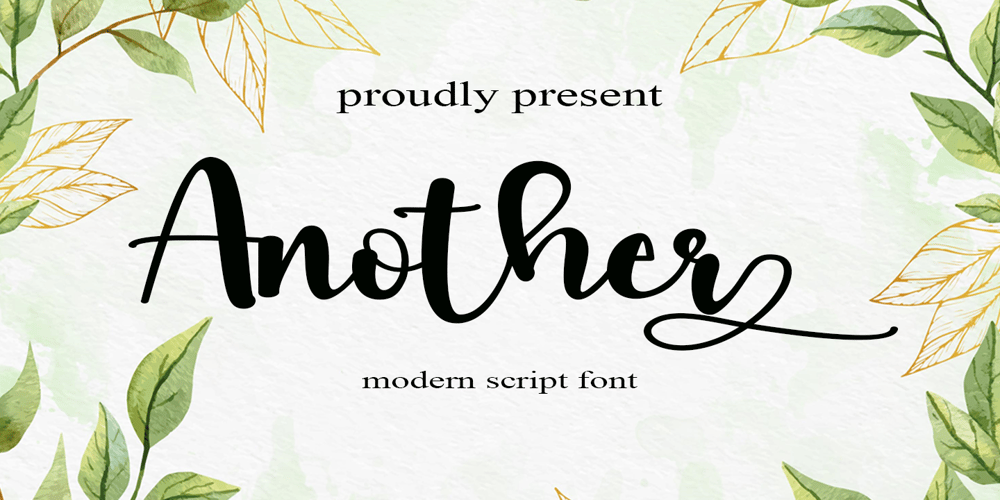
Another Font Family was designed by Arief Tri Sulistiyono and published by Supersemarletter. Another contains 1 styles and family package options. Another is a flowing handwritten font, described by an elegant touch, perfect for your favorite projects. Fall in love with its incredibly distinct and timeless style and use it to create spectacular designs! Provide ligatures with special make the design letter looks incredible. Honestly it works perfectly for headlines, logos, posters, packaging, T-shirts and much more.Font Features :• Regular version• Character set A-Z in uppercase and lowercase• Ligatures in Lowercase and special• Alternates option• Numerals & Punctuation• Accented Characters• Multiple Languages SupportedRecommended to use in Adobe Illustrator or Adobe Photoshop with opentype feature.If you have questions, just send me a message and I’m glad to help.